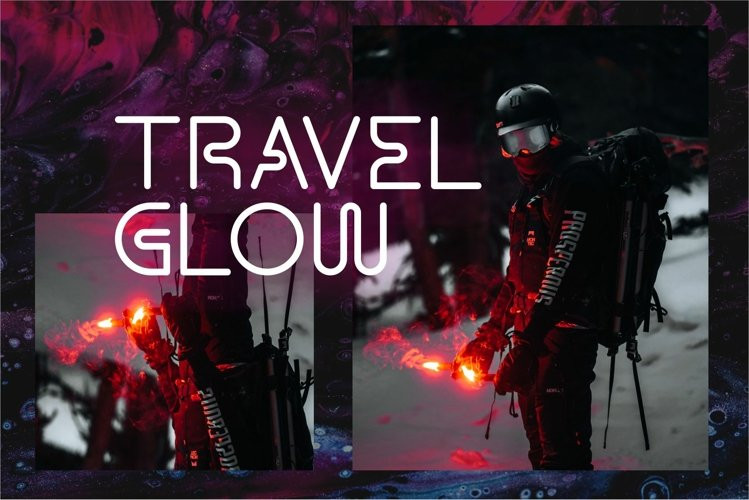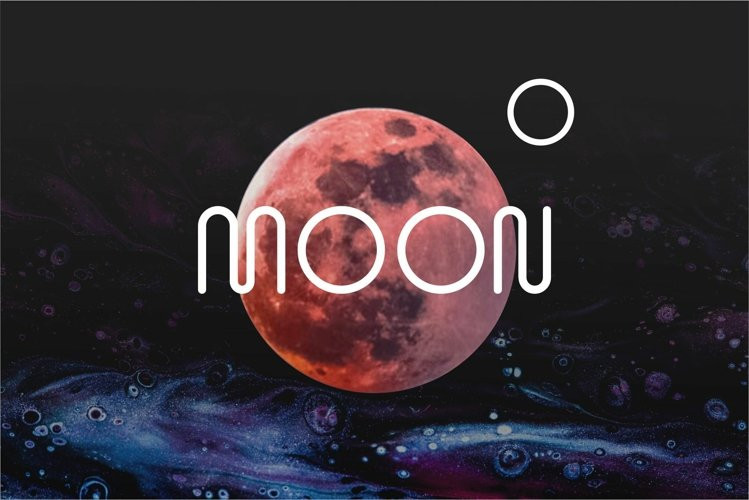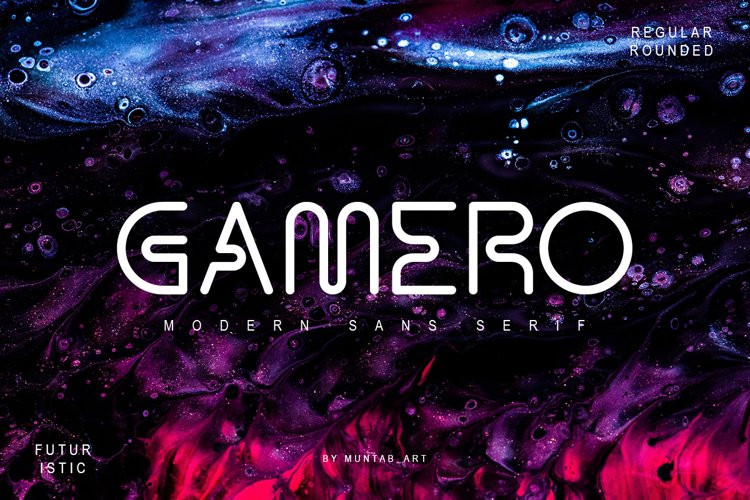
Gamero Font
Gamero fonts includes uppercase letters, numerals, a large range of punctuation. Sans serif font with modern style. Created for poster, web design, branding, illustrations, badges and some other works.